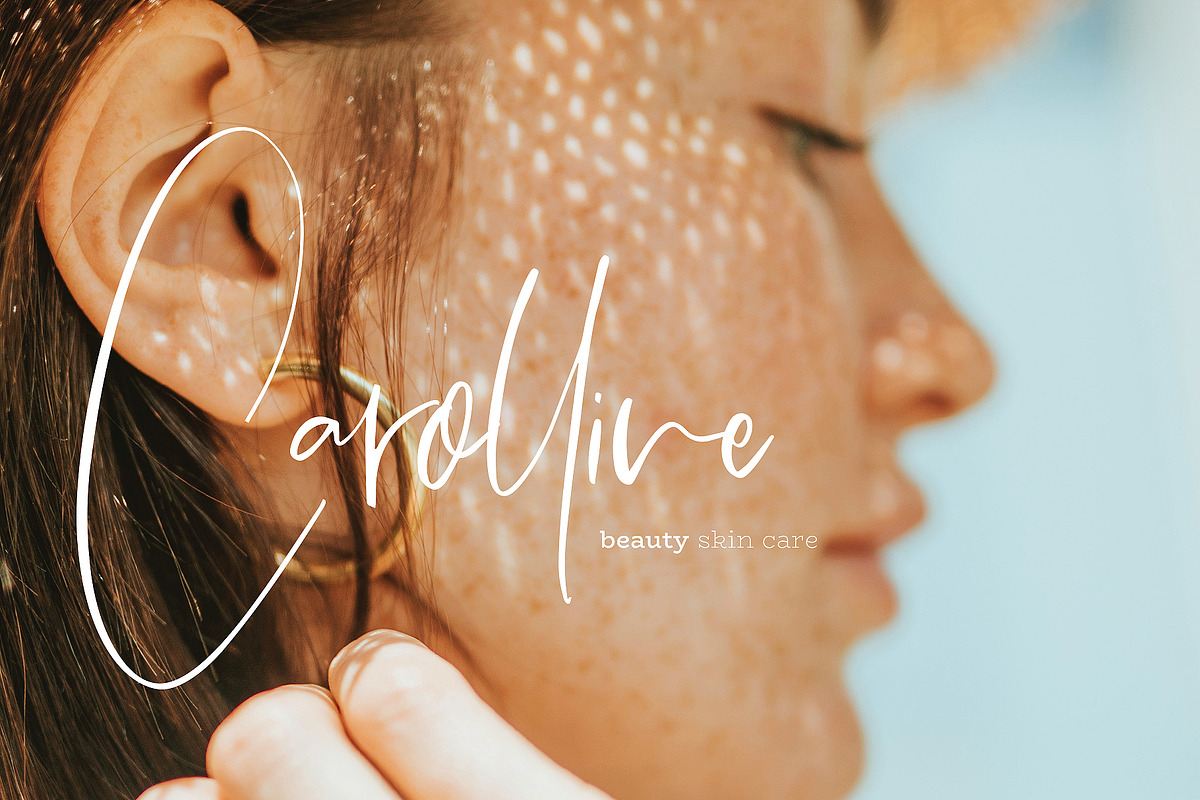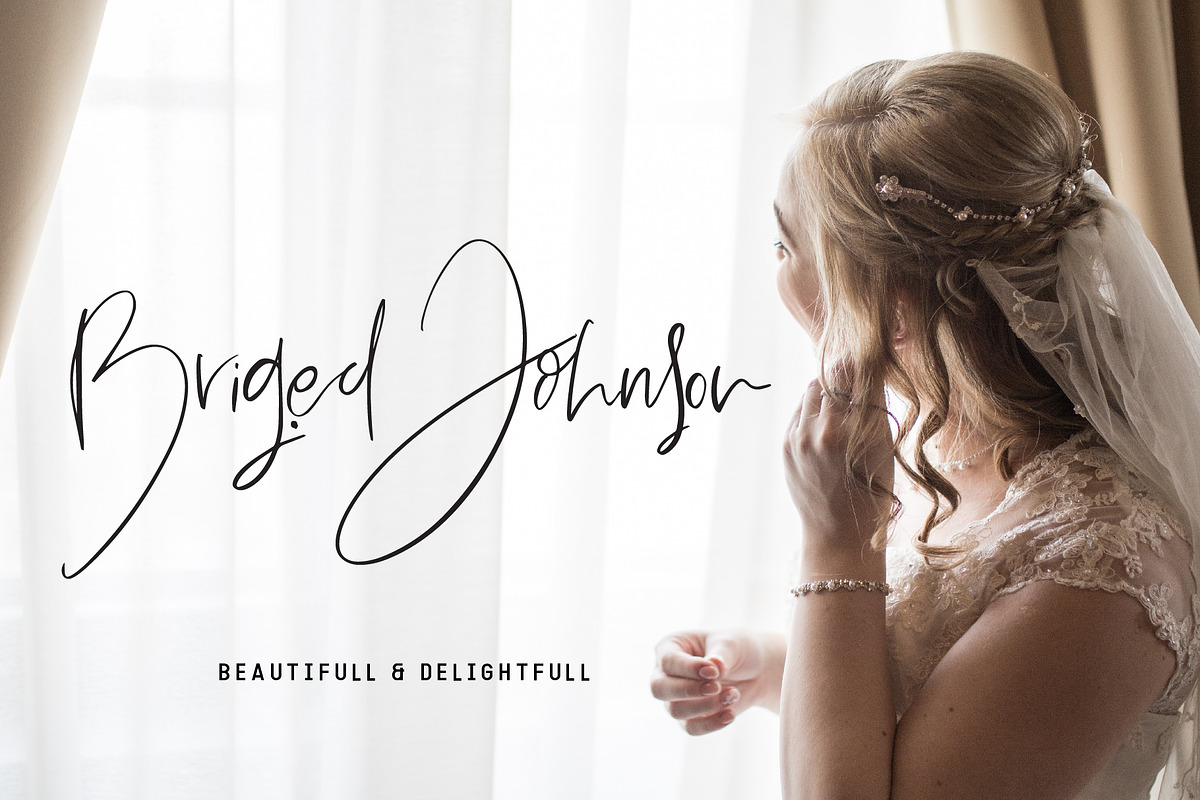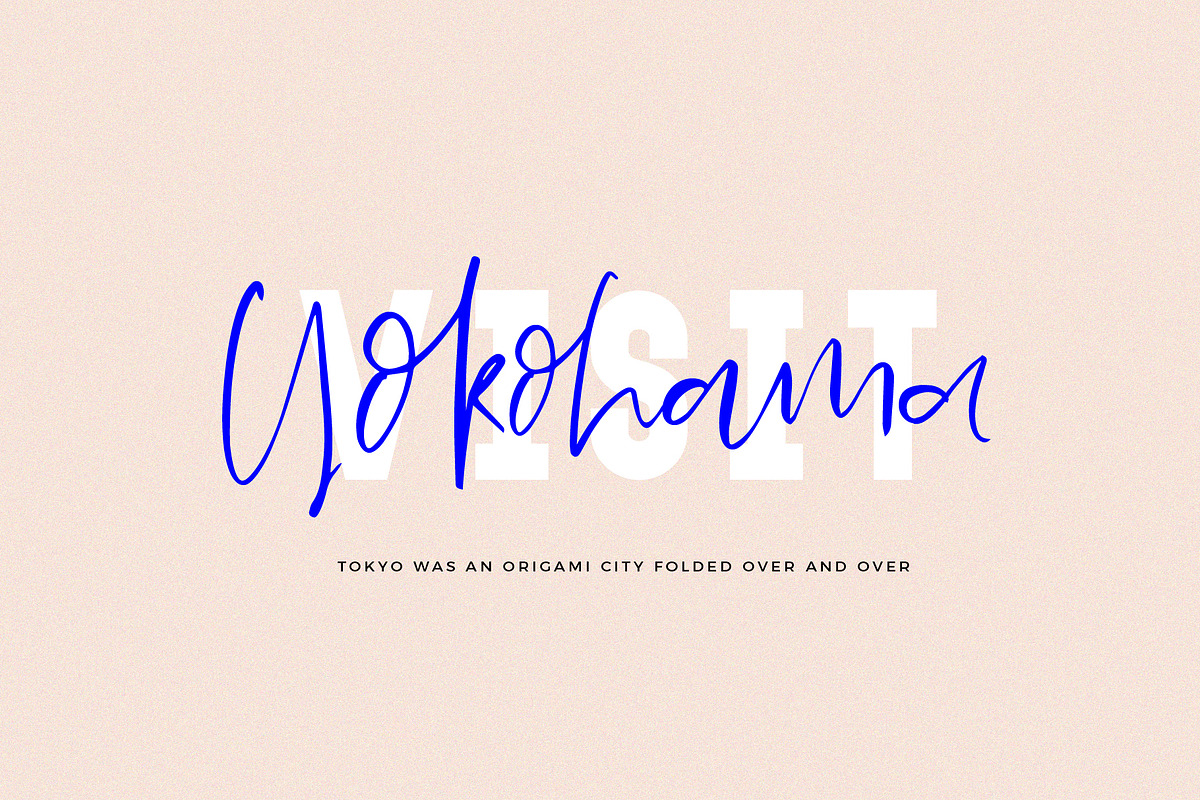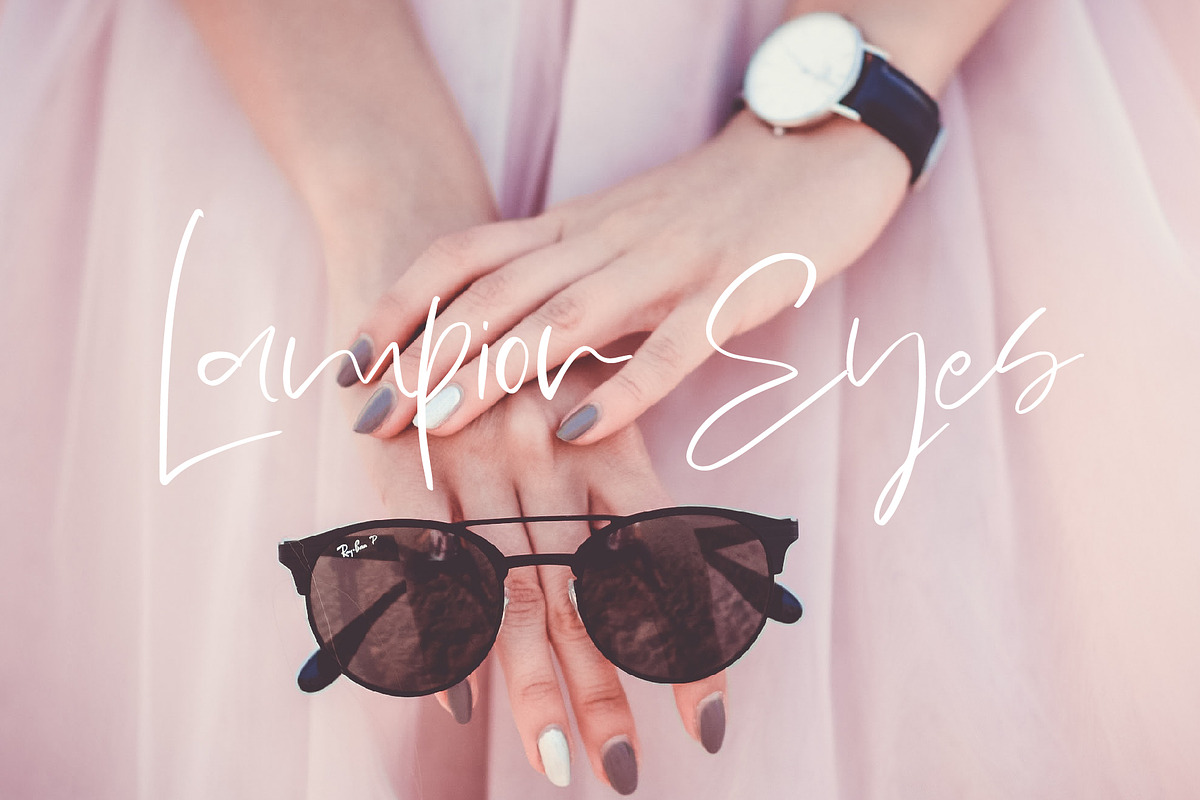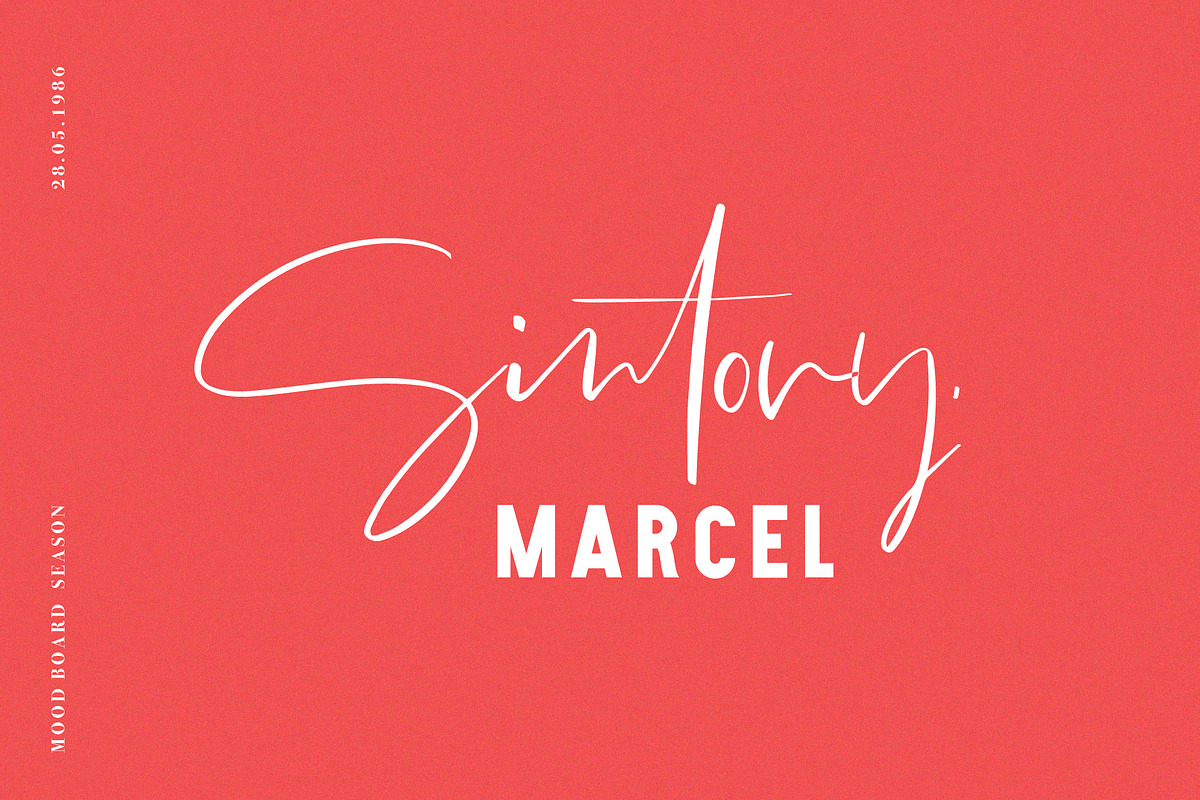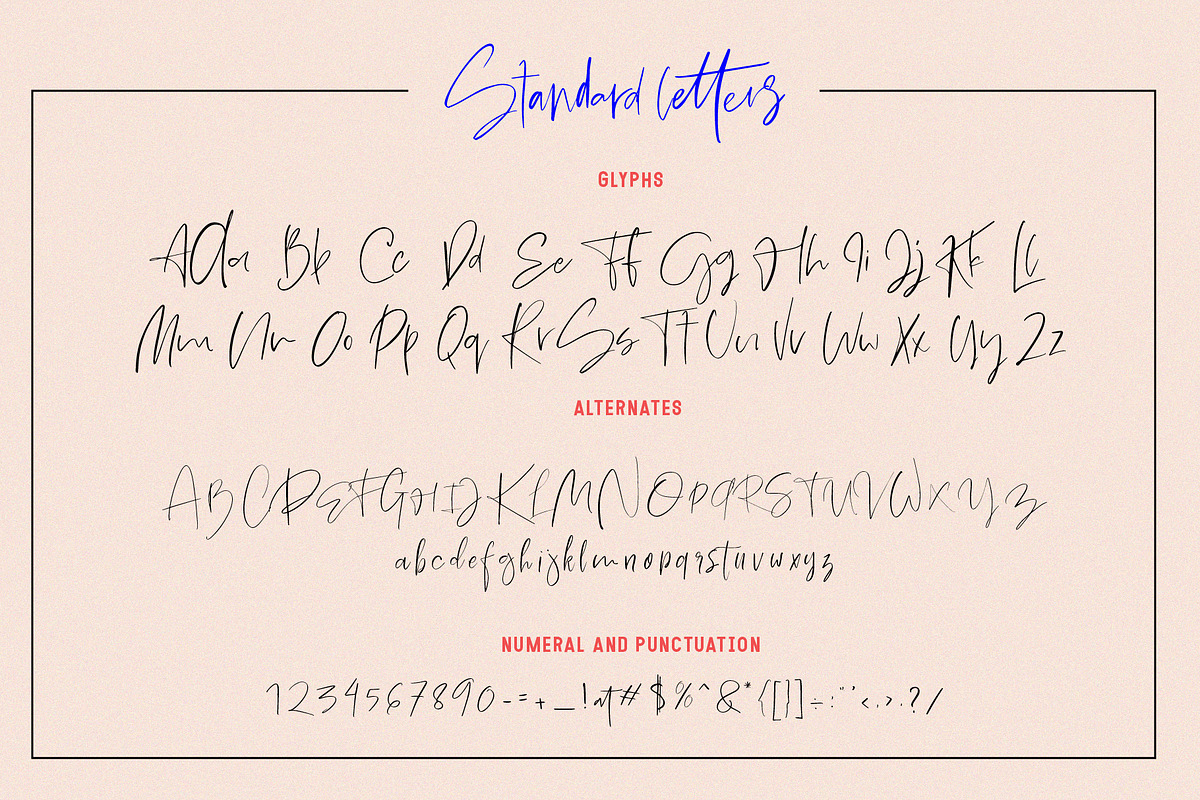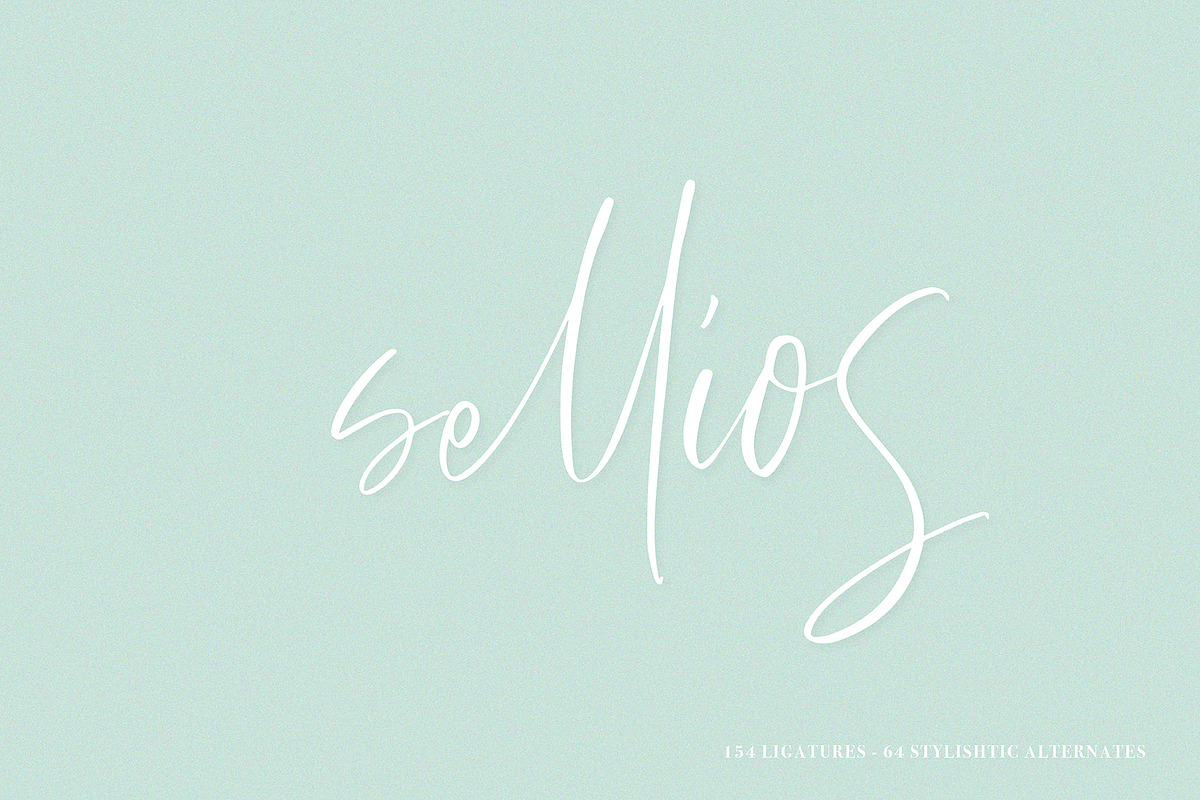
Minted Mood / Font Duo
Minted is signature handwritten, easy to use, naturally from handmade. Come with unique character, with vibe of real lettering make the a lot of ligature, alternated make the signature style perfect. This is perferct for branding, logo, headline, save the date ideas, Upscale, and handcrafted concept.
Minted font contains following ligatures, please typing ligatures on type feature, feel the unique
Al at acc aff ahh all alt and atl att azz aa ab ac af ag ah aj ak al am an ao ar as az bb bj bl ccc cii coo ca cb cc cd cf ci ck cl co cz dd eat aff ell eme emp end ent ess est eth ett ee eg ej el em en er es ey ez fb ff fj goo gg gh gi gj gl go gr gt he hh hi hj ht hu iik ika ill imm imt inn int ios irr ia ie ii ij ik il im in io ip iq ir it iz jj jk kj kk lj lm mj ml ns oak off ont ook ott oa ob od of ch oj ok ol oo os ot ow ph pp pr rs sj tht tt th ti ts ukr unt uk un ut zl ll ed ant mm nn ss oh
Minted also includes full set of uppercase and lowercase letters, multilingual symbols, numerals, punctuation. combine with Modular font is perfect macth for any project, handcrafted, logo, save the date, logo, signature logo, unique quote